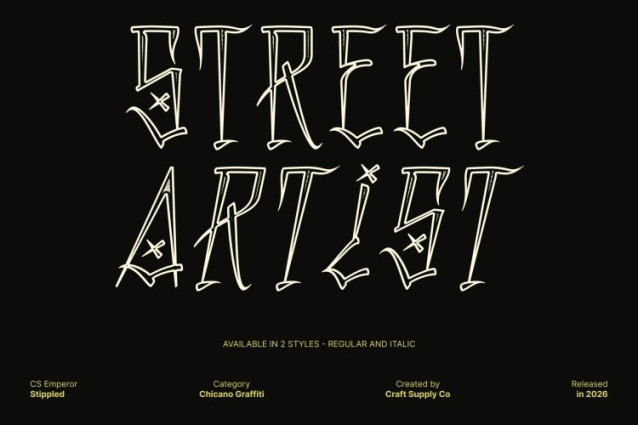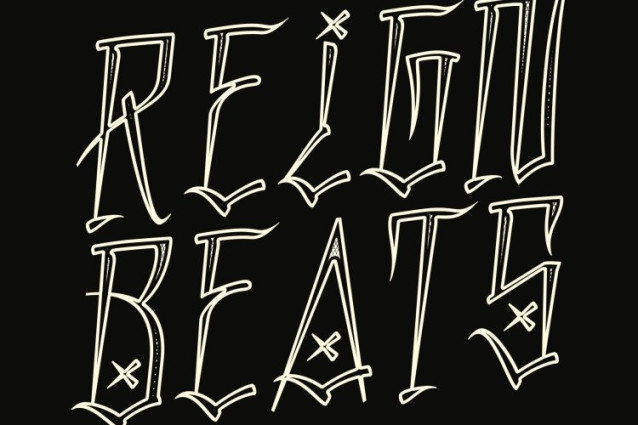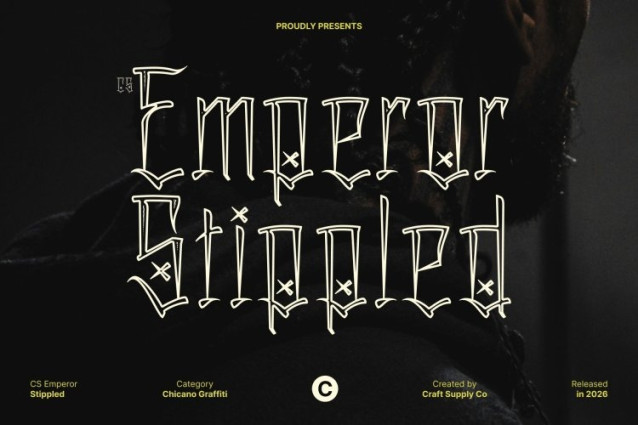
CS Emperor Stippled Font
CS Emperor Stippled Font – This is a bold display font that captures the vibrant energy of Chicano graffiti and urban street art. Combining expressive lettering with intricate stylistic details, this font embodies the rebellious and creative spirit of graffiti culture. The added stippled texture introduces a subtle dotted effect across the letterforms, giving the design a gritty, handcrafted surface that enhances its authentic street-inspired character.
Dynamic Curves and Striking Angles
The letterforms of this font feature fluid curves paired with sharp, confident angles, creating a dynamic and visually engaging structure. This balance between flowing movement and bold edges produces a typeface that feels lively, rhythmic, and full of attitude. The stippled texture further enriches the forms, adding visual depth while maintaining the strong graffiti-inspired silhouette.
Celebrating Creativity and Cultural Identity
Inspired by the artistic traditions of Chicano graffiti, expresses individuality, pride, and creative freedom. Its decorative flourishes and expressive strokes reflect the storytelling and cultural identity often found in street art, making it a powerful typographic voice for designs that celebrate originality and urban artistry.
Perfect for Bold Urban Design Projects
This font works exceptionally well for posters, music artwork, clothing graphics, branding, murals, and social media visuals. Its vibrant personality and textured finish bring an authentic street-style atmosphere that stands out in youth culture and creative campaigns.